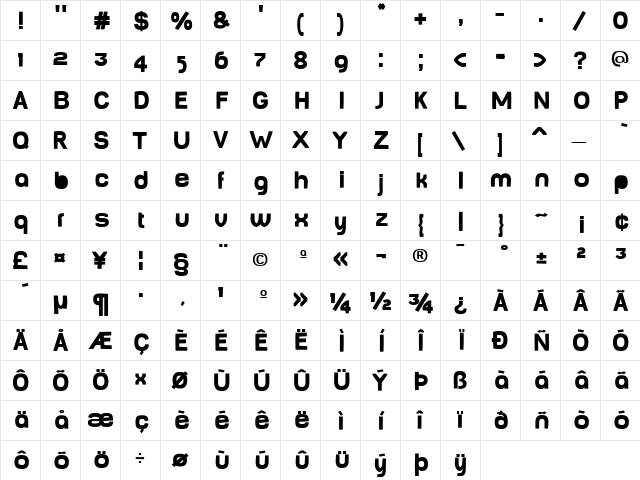
BabyMineFat Medium
Design Context for BabyMineFat Typeface
BabyMineFat is a composed and adaptable typeface that performs quietly and consistently across a wide range of design contexts.